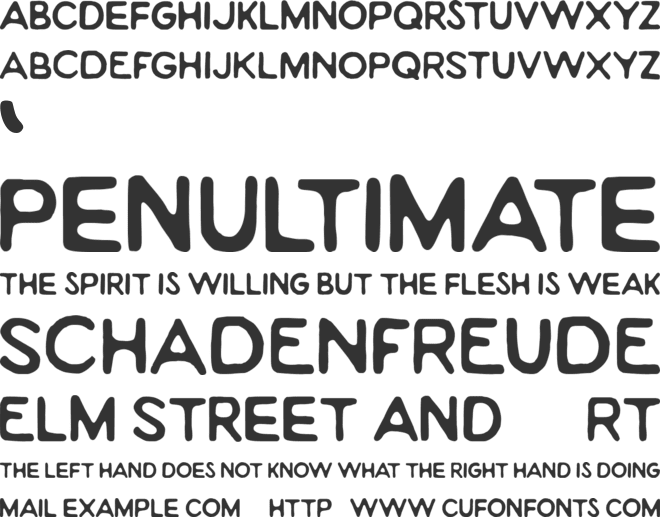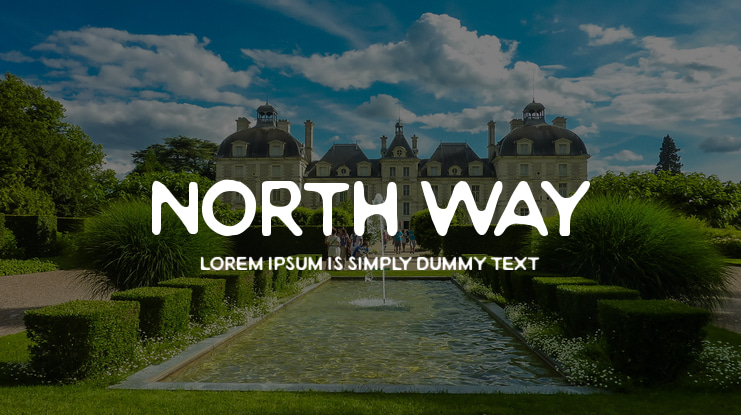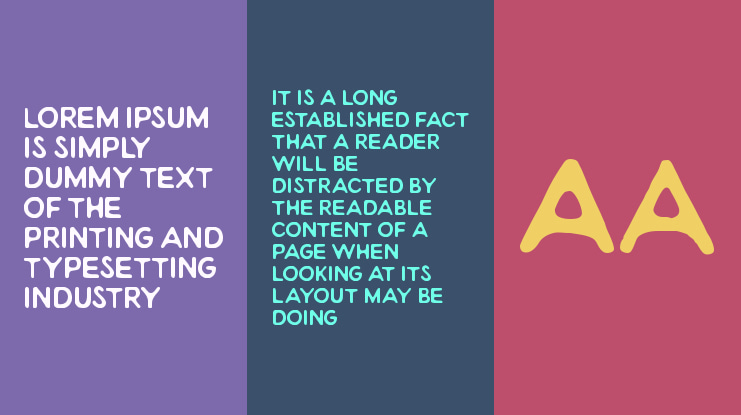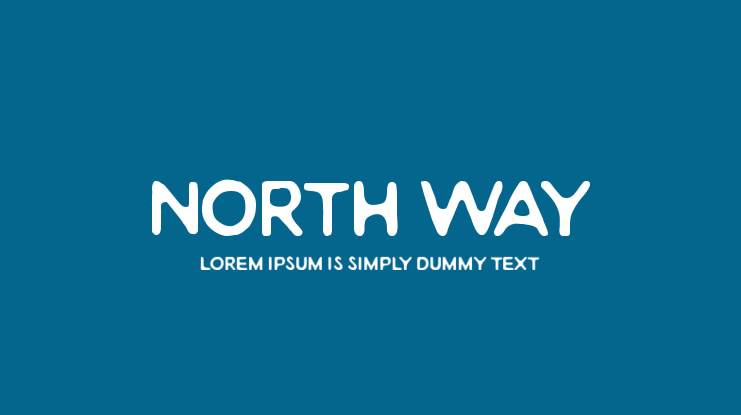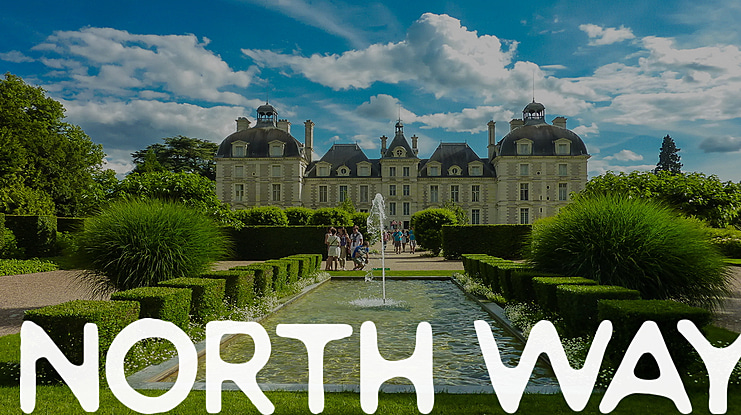
North Way Font
Fitra Dwivani
North Way is a simple sans serif typeface, with rounded edges and rough styles. It is perfect for logo designs, and small amounts of text. The font includes an uppercase alphabet, numbers and common symbols.